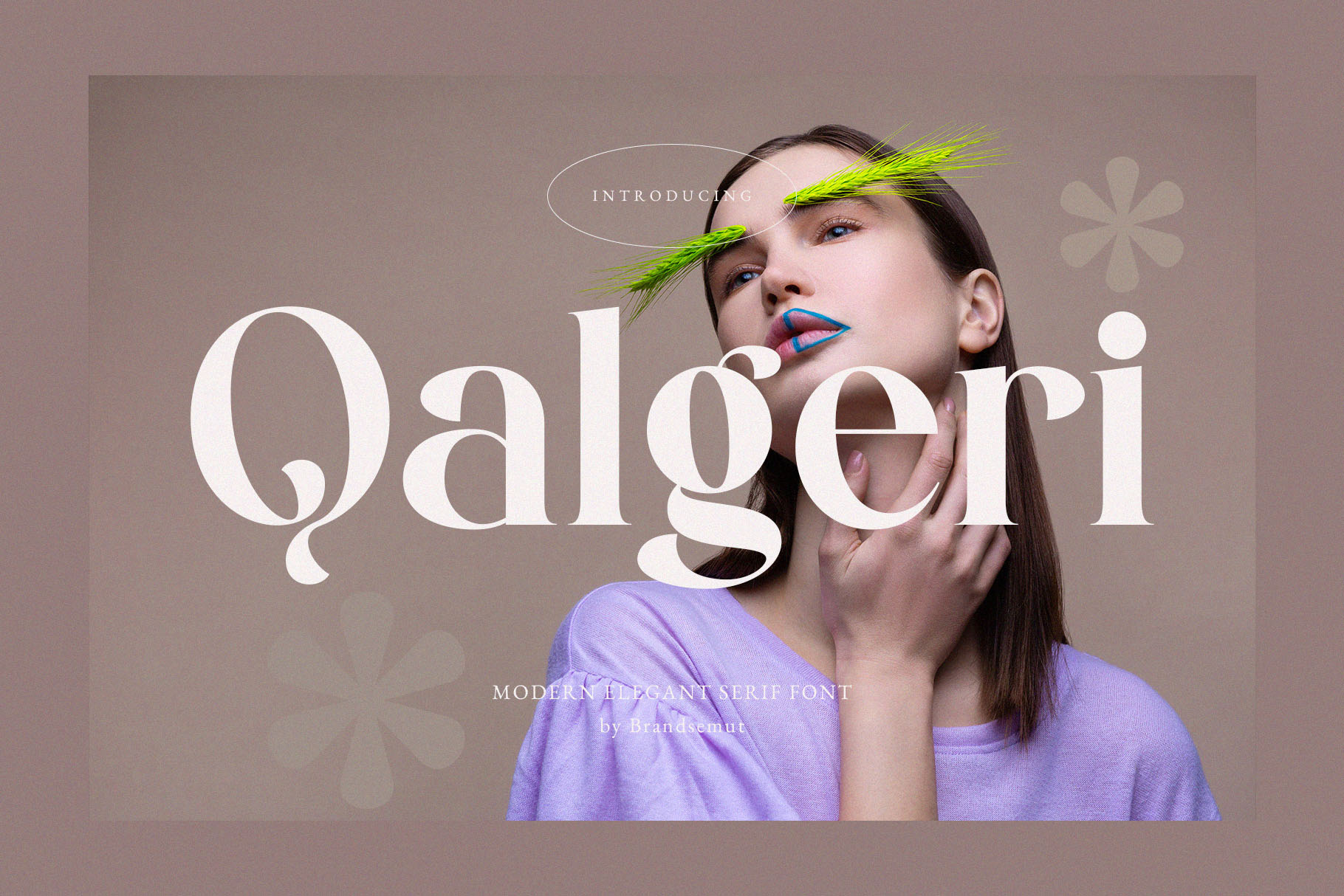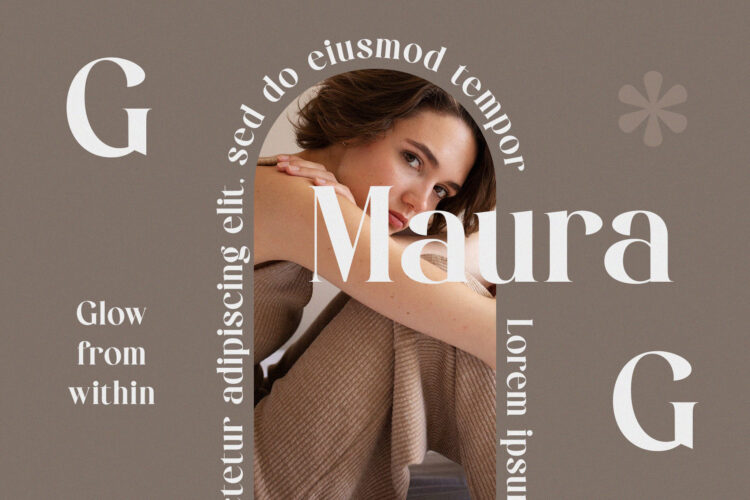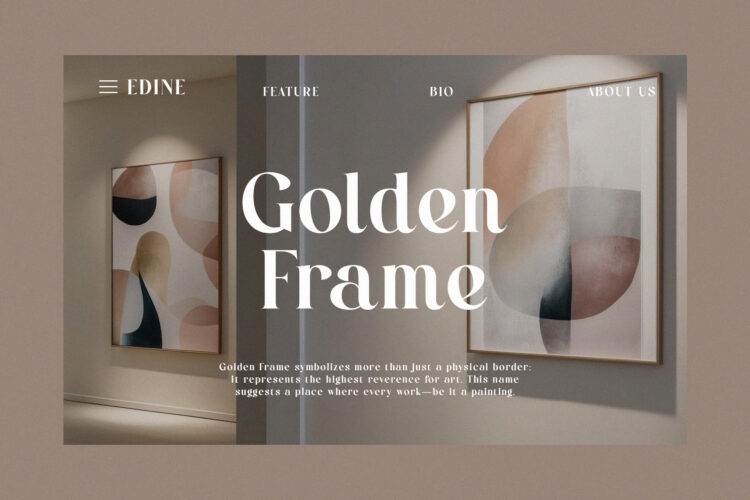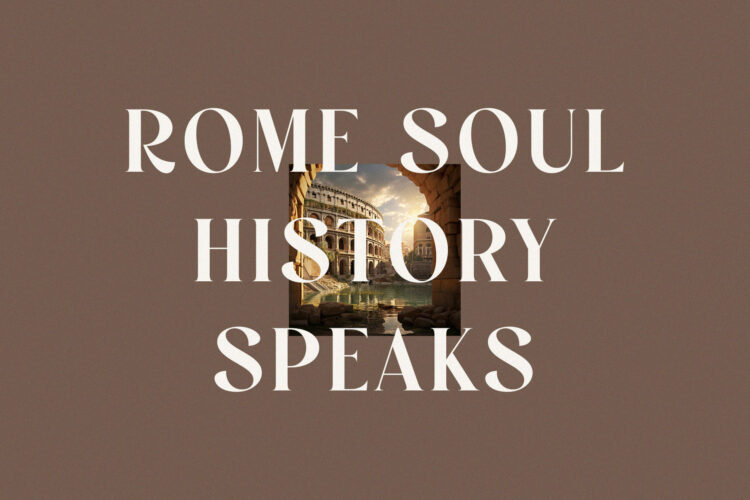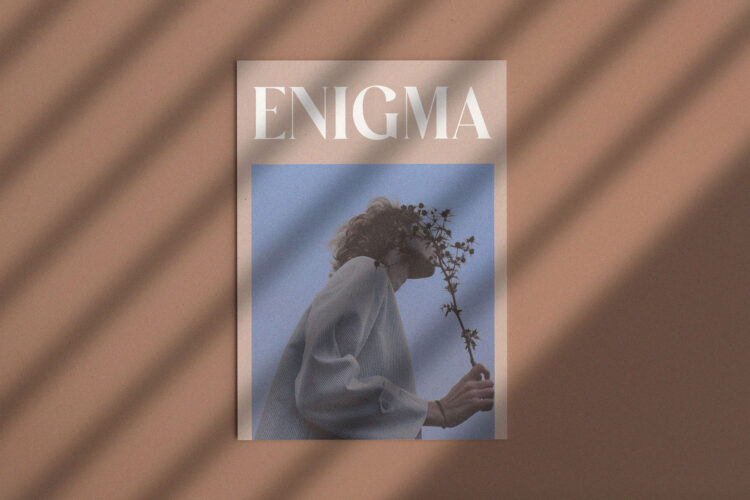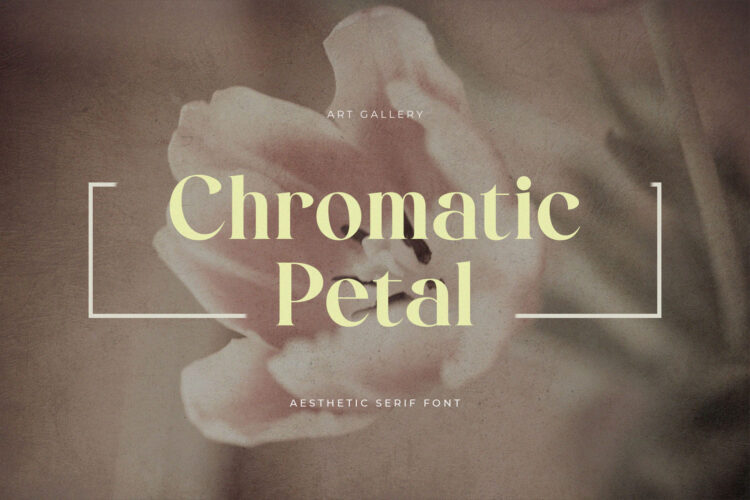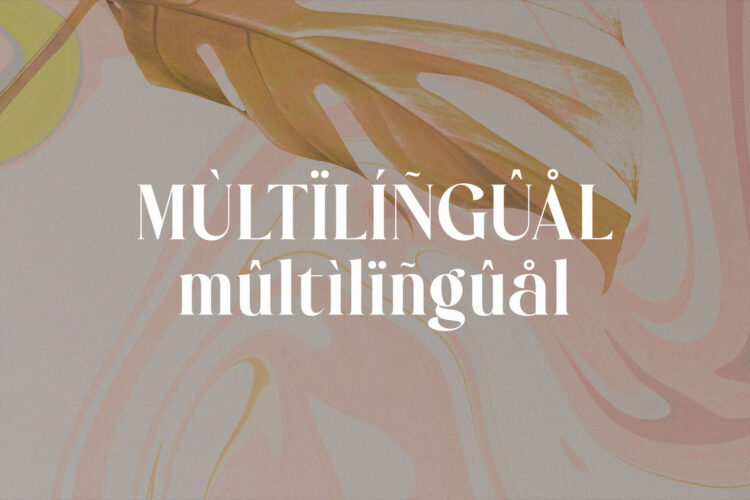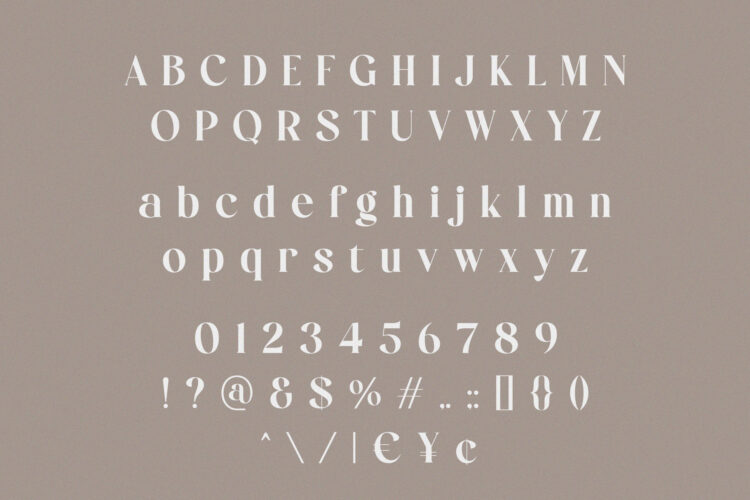
Qalgeri – Modern Elegant Serif Font with Uppercase & Lowercase for Luxury Branding & Editorial Design
Qalgeri is a modern elegant serif font designed to bring a graceful and fashionable flair to your design projects. With both uppercase and lowercase characters, Qalgeri blends refined curves, sophisticated terminals, and high contrast strokes — making it a perfect choice for luxury branding, beauty packaging, fashion magazines, wedding stationery, and artistic editorials.
Each letterform is delicately crafted to create a harmonious rhythm and visual elegance that captivates the eye. Whether used for logos or long-form typography, Qalgeri delivers charm and prestige in every stroke.
Perfect for:
– Editorial magazine titles & fashion layouts
– High-end brand logos & identity
– Wedding invitations & save-the-dates
– Feminine branding and cosmetic labels
– Social media quotes and classy marketing
Font Features:
– Uppercase & lowercase characters
– High contrast serif structure
– Multilingual support
– Clean for both print and digital usage
Let Qalgeri elevate your design with timeless elegance and a bold creative statement.